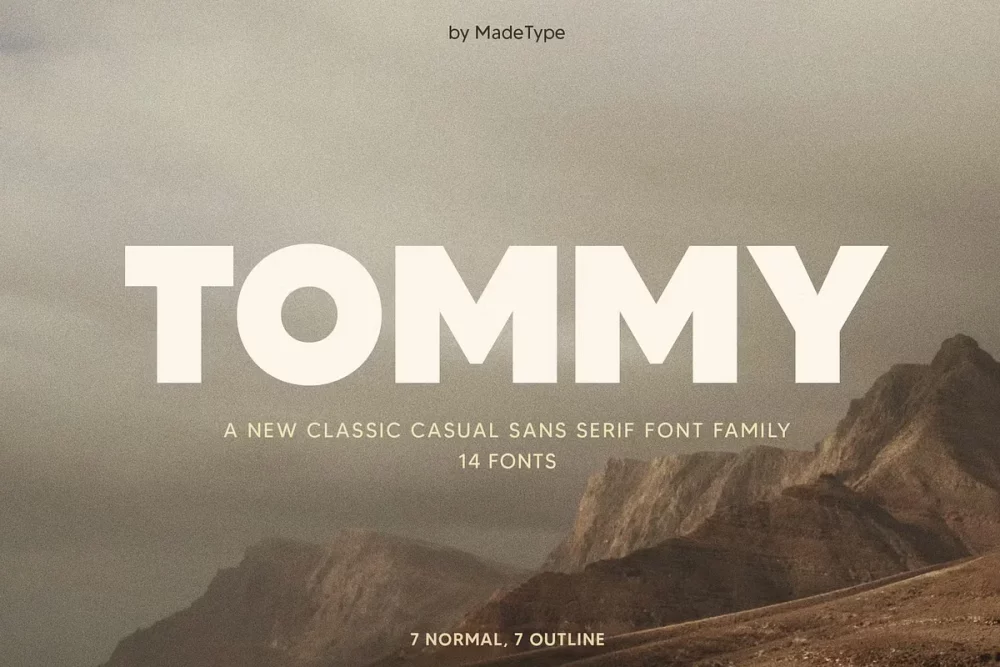
MADE TOMMY Font is a modern classic casual sans serif font family designed to feel clean, friendly, and versatile. With balanced proportions and a relaxed tone, MADE TOMMY delivers a timeless look that works across both contemporary and classic design styles.
This font family includes both solid and outline styles, giving designers creative flexibility for a wide range of visual applications.
Font Family & Included Styles
MADE TOMMY includes a complete set of styles for flexible design systems. These styles make MADE TOMMY suitable for both display typography and supporting text.
- 7 solid (normal) styles
- 7 outline styles
Best Uses for MADE TOMMY Font
- Fashion & lifestyle branding
- Magazine layouts & editorials
- Logo & brand identity design
- Photography & creative portfolios
- Invitations & wedding stationery
- Quotes, blog headers & posters
- Advertisements, postcards & books
- Websites & digital projects